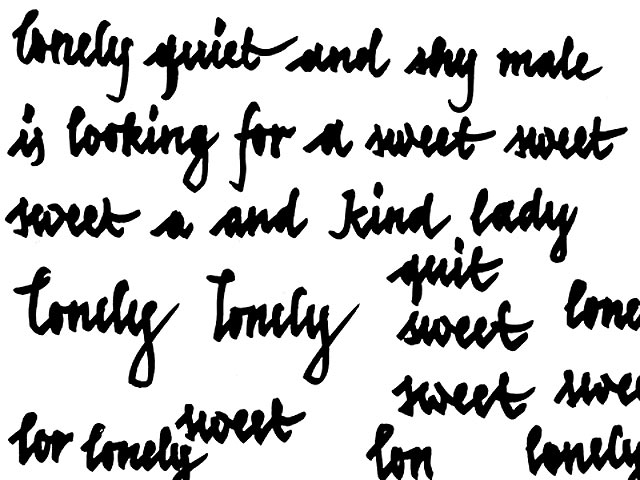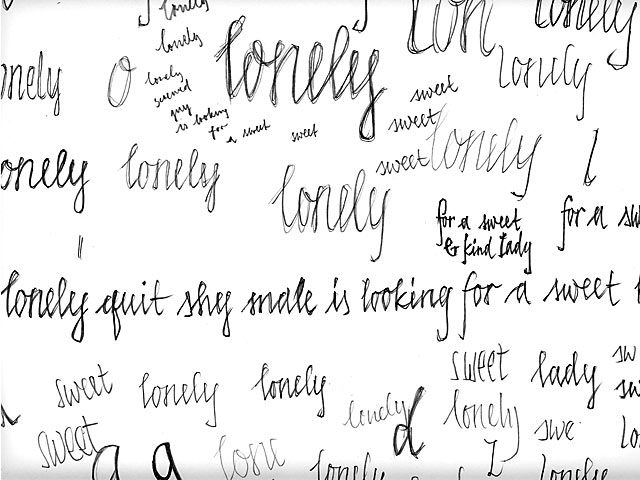
Kai Sinzinger : Lonely Kai
Sweet letters for lonely Kai! I joined this workshop to maybe find a girlfriend because I'm one of those lonely singles in Germany. And that's why I designed this sweet looking handwritten font for my lonely message. So far there is no reaction but it turned out that I fell in love with Underware's new type Bello. Respect to your hand.